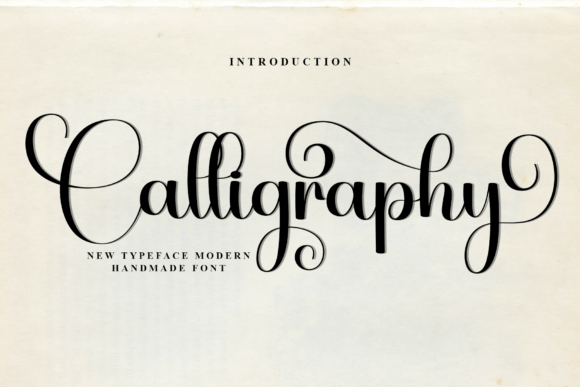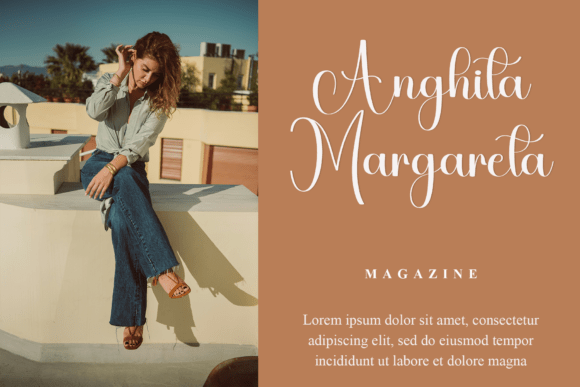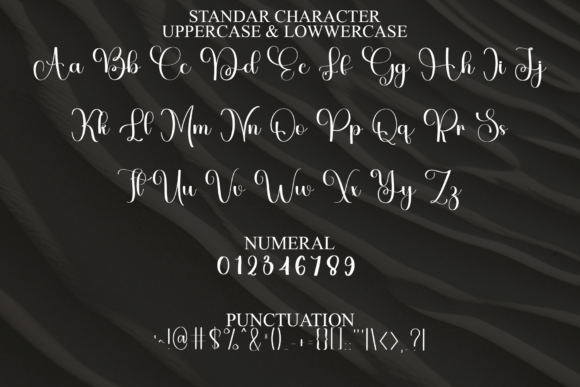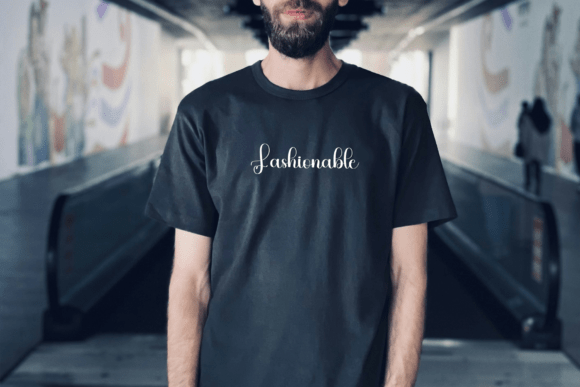
About the Calligraphy Font
Experience the unique personality of Calligraphy Font, a font designed for impact. Calligraphy is a stylish and incredibly elegant script font. It looks stunning on wedding invitations, thank you cards, quotes, greeting cards, logos, business cards and every other design which needs a handwritten touch.
Calligraphy Font Usage Examples
Calligraphy Font Example